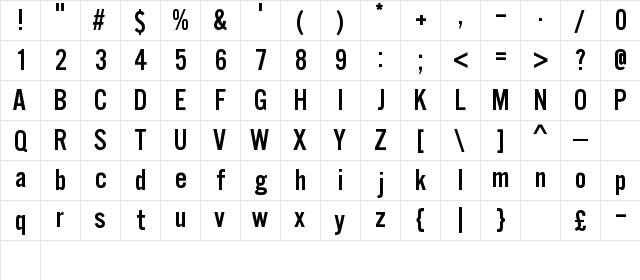
Solo En Cines Regular
Design Context for Solo En Cines Typeface
Solo En Cines takes a measured approach to typography — its balanced proportions and neutral character make it a reliable workhorse for both digital and print work.
Pro Tip: Pair Solo En Cines with a font of contrasting weight or personality to build a more expressive typographic hierarchy.